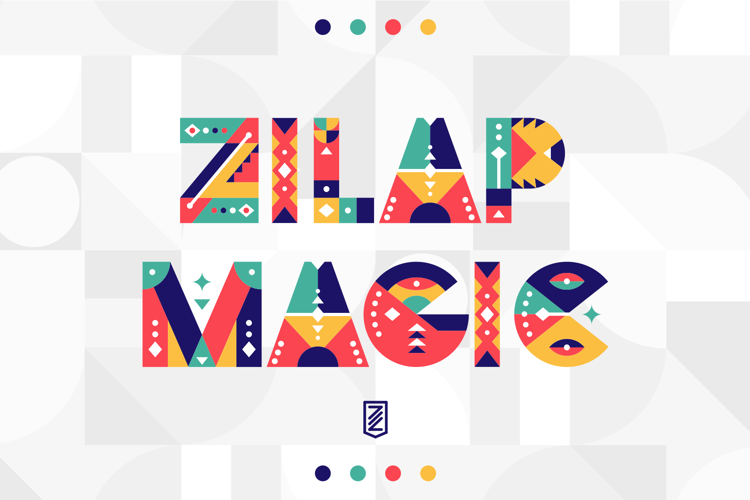
Zilap Magic Font
About Zilap Magic Font
More info from ZILAP ESTUDIO - ZP
Zilap Study. Designer of typographic fonts with urban, futuristic, cultural and geometric concepts with commercial licenses for uses, professionals, advertising and / or Events.
Design & Concept by Zilap Studio
Assembly and foundry by LJ Design Studios
Awesome pattern and color usage.